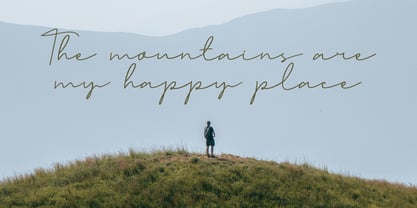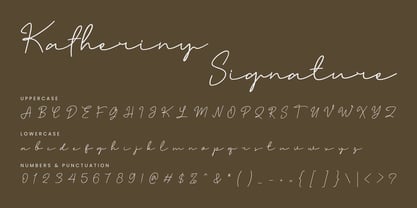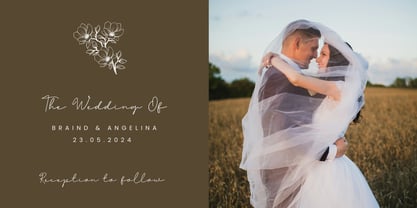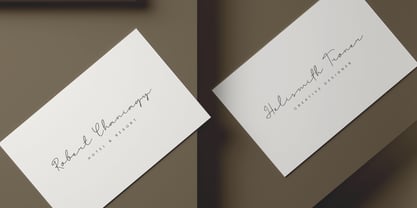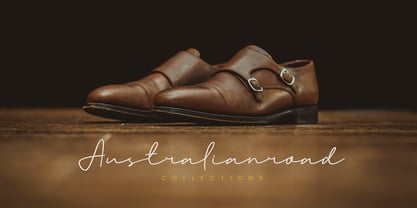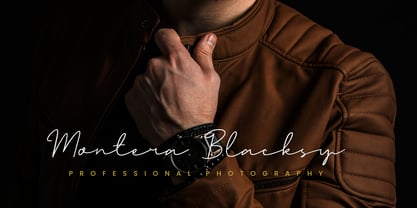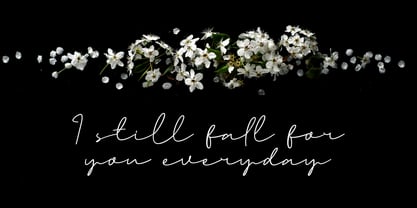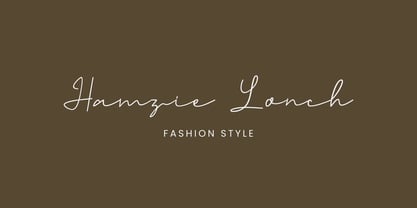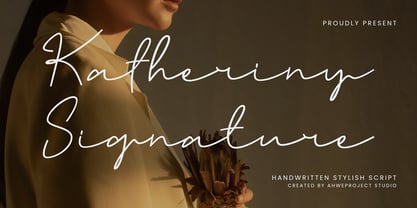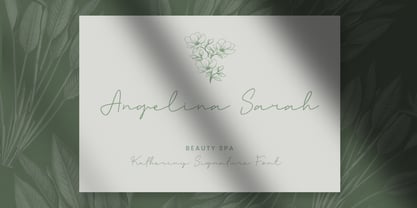
Katheriny Signature
by ahweproject
The Katheriny Signature Font Family was designed by Dida Ahluddin and published by ahweproject. Katheriny Signature contains 1 styles. More about this family
Katheriny Signature is a script font with a fashionable and sophisticated handwriting style. This font has unique curves so it looks elegant, natural, stylish and perfect. Katheriny Signature font is suitable for projects that require a sense of handwriting. For example, used for photography, watermarks, advertisements, logos, branding, invitations, labels, social media posts, wedding designs, special events or anything that requires handwriting.
Designers: Dida Ahluddin
Foundry: ahweproject